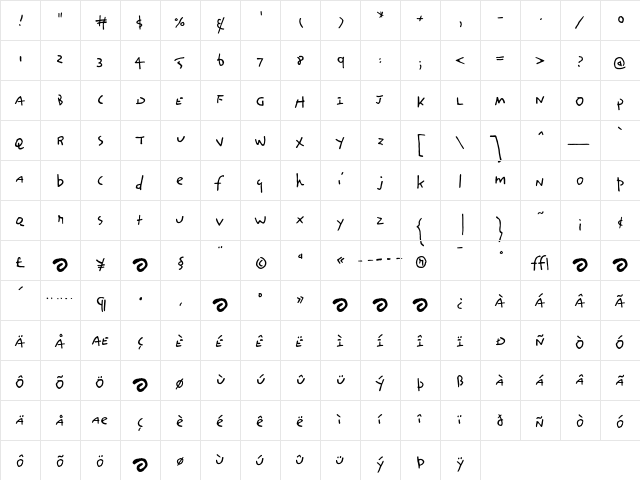
Dizzy Alternate
Dizzy is a composed and adaptable typeface that performs quietly and consistently across a wide range of design contexts.
Pro Tip: Pair Dizzy with a font of contrasting weight or personality to build a more expressive typographic hierarchy.